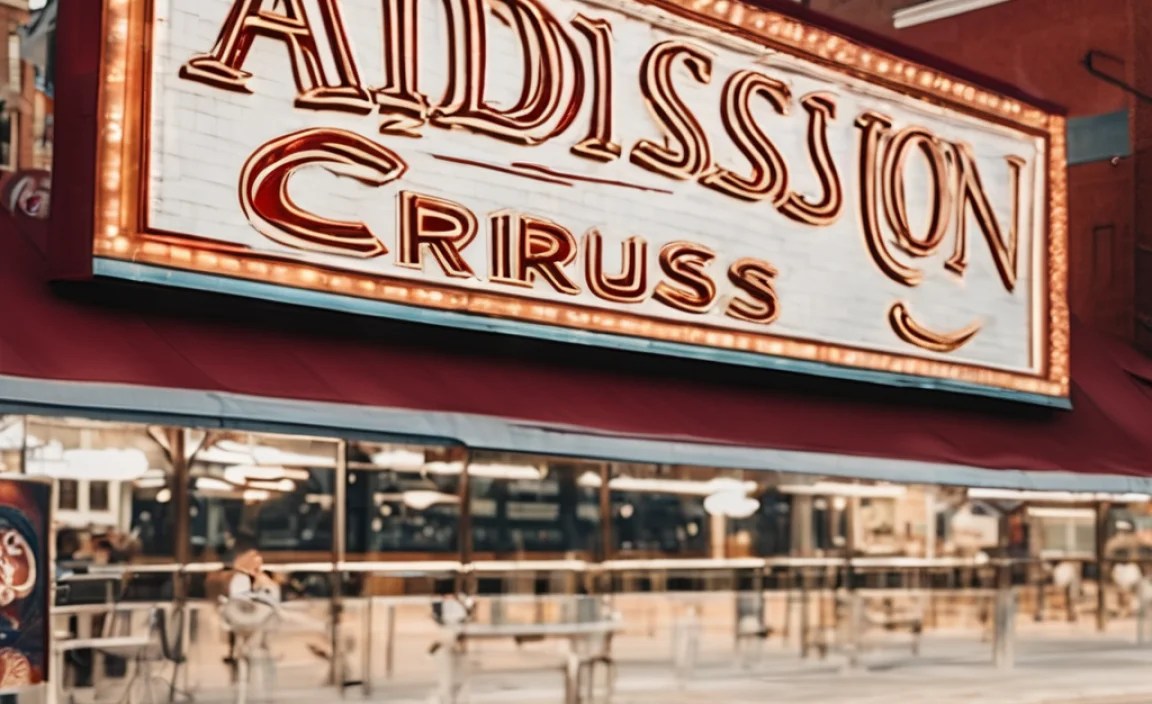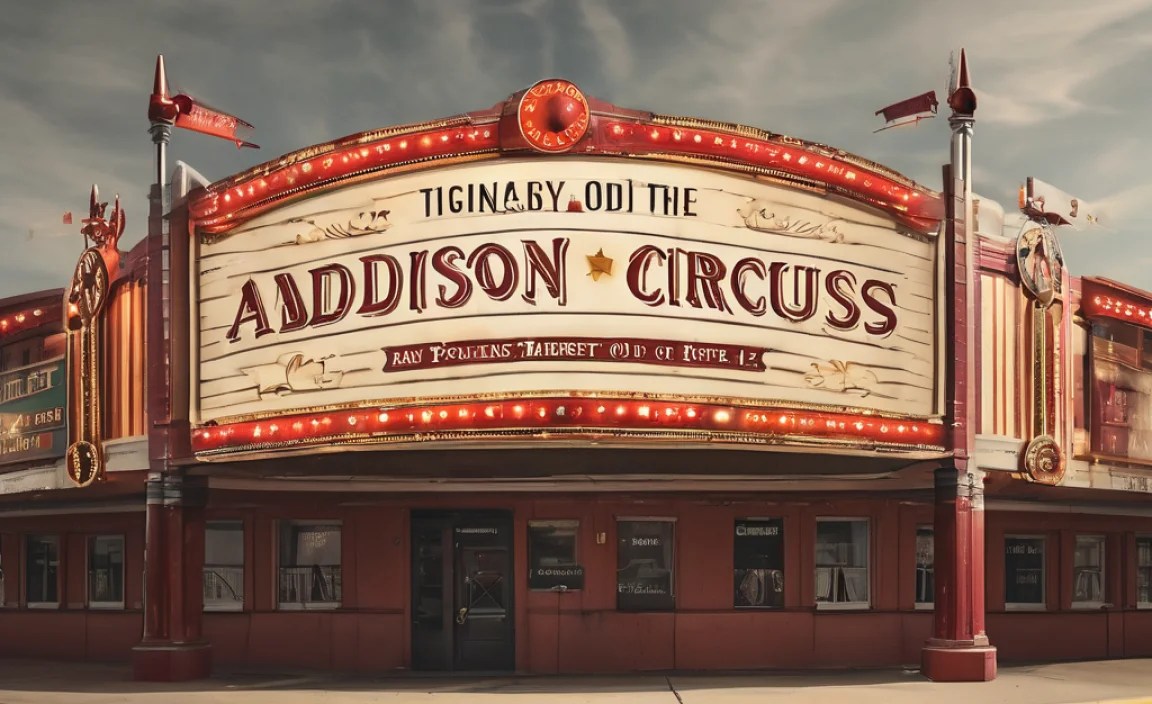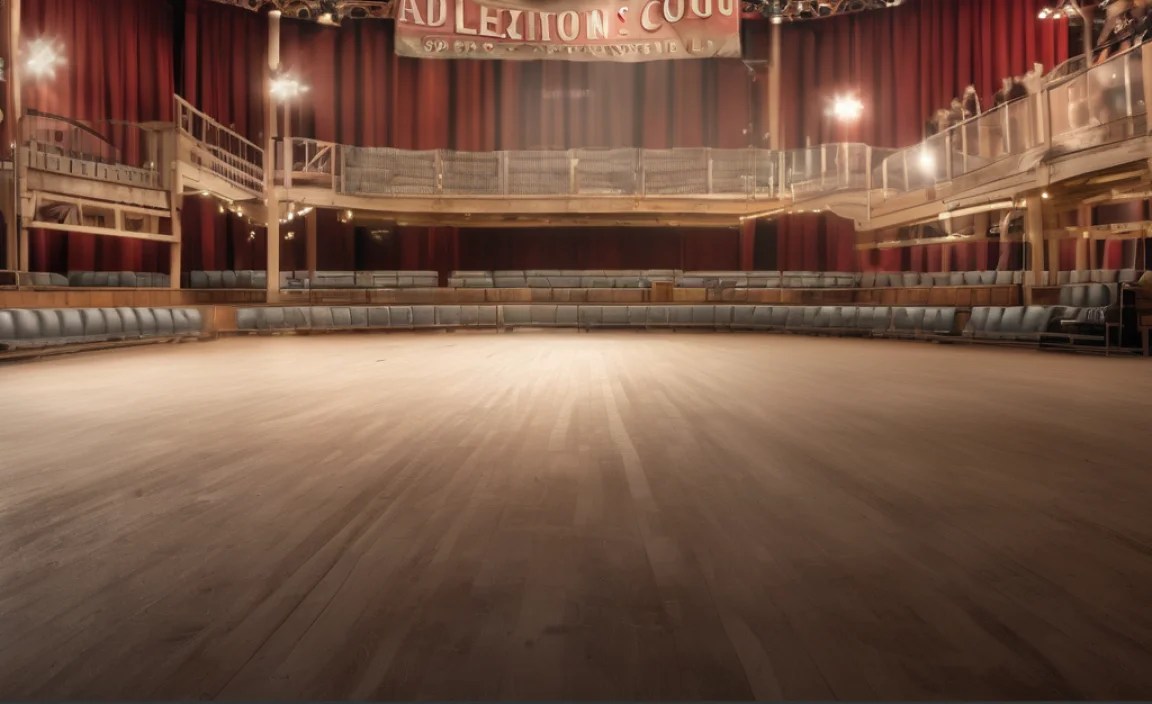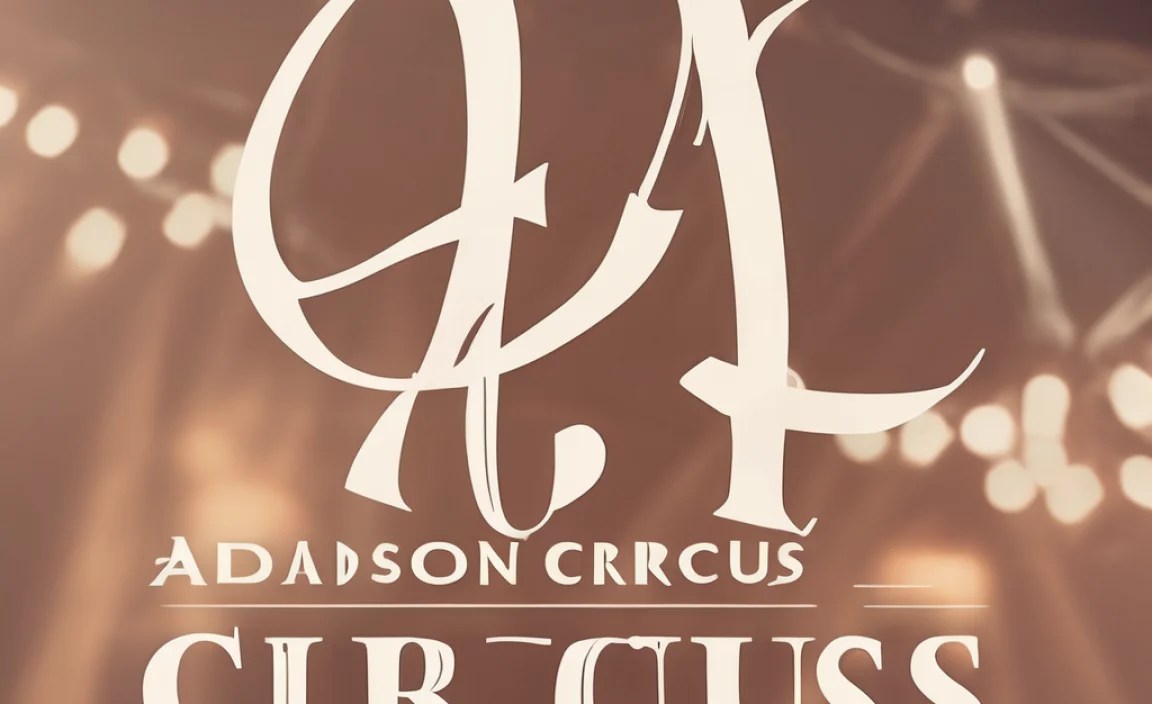
Have you ever seen an old circus sign and wondered about its font? The Addison Circus Font brings that magical circus feel to any design. It’s like stepping into a world of fun and excitement! This font is not just for posters or signs. It’s for anyone who loves playful and bold letters.
Imagine a big top tent, colorful balloons, and clowns juggling. That’s the kind of excitement Addison Circus Font brings to your work. It’s perfect for birthday cards, party invitations, and more. This font is eye-catching and full of character. Let’s explore how this font can add a splash of adventure to your creations!
Key Takeaways
- Addison Circus Font brings a vintage circus vibe.
- It’s perfect for fun, eye-catching designs.
- Use it for posters, invitations, and crafts.
- The font is colorful and full of character.
- Addison Circus Font makes any text look exciting.
Understanding Addison Circus Font
The Addison Circus Font is a whimsical and fun font style. It imitates the look of vintage circus posters. These posters are colorful and full of bold, playful letters. This font is designed to grab attention and convey excitement. People use it for parties, events, and anything needing a lively touch.
- Great for carnival-themed events.
- Used in crafts and DIY projects.
- Perfect for children’s birthday invitations.
- Ideal for party posters and banners.
- Brings nostalgia and fun to designs.
The font’s design makes text pop and draws the eye in. It’s not a font for everyday use, but one for special occasions. When you want to make a statement, this is the font to use. It captures the essence of a circus with its vibrant style. This font can transform any ordinary text into something extraordinary.
Why Use Addison Circus Font?
Do you want your designs to stand out? The Addison Circus Font can make your project unique. Imagine a birthday card with boring text. Now picture it with bright, exciting letters. Which one is more fun? This font can transform a plain design into something magical and memorable.
Where to Apply Addison Circus Font?
Think of the places you can use this font. Is it a party invitation or a playful sign? This font shines in both. It’s perfect for events that need excitement. The font’s bold style fits perfectly with festive decorations. It’s like adding a sprinkle of magic to your designs.
Making Projects Fun with Addison Circus Font
Are you working on a school project? The Addison Circus Font can make your presentation fun. Use it to highlight important points. Teachers and classmates will love the creative touch. Remember, the font is easy to read even with its playful style. It keeps viewers interested and engaged.
The Design of Addison Circus Font
The design of Addison Circus Font is inspired by old circus posters. It features bold, colorful letters. These letters have unique curves and lines, mimicking the joyful spirit of a circus. This font is perfect for capturing attention and bringing life to any design project.
- Bright, eye-catching colors.
- Playful and bold letter shapes.
- Unique curves and swirls.
- Easy to read from a distance.
- Mimics vintage circus posters.
Using this font adds a touch of nostalgia. It reminds people of the circus’s magic and joy. Designers love it for its ability to convey fun. Whether for a print or digital project, this font ensures your message isn’t ignored. It turns a simple text into a playful masterpiece.
The Unique Style of Addison Circus Font
What makes the Addison Circus Font special? It’s the unique style that stands out. Each letter has a personality. They dance across the page, creating a lively scene. This font brings joy and excitement to all who see it. That makes it ideal for anything that needs a touch of whimsy.
Mimicking the Circus Experience
Imagine the sights and sounds of a circus. The Addison Circus Font captures that experience. The letters are like performers in a show. They leap and twirl, creating an unforgettable visual display. People feel the energy and excitement just by seeing the text in this font.
Enhancing Visual Creativity
The Addison Circus Font is a tool for creativity. It’s not just about letters. It’s about telling a story. Each design element contributes to the overall circus theme. This font inspires creativity and encourages designing beyond the ordinary.
Comparing Addison Circus Font to Others
How does Addison Circus Font compare to other fonts? This font stands out for its playful style. While other fonts may be formal, Addison Circus Font is all about joy and fun. It’s a break from the usual seriousness found in many fonts. Let’s see how it compares in a table.
| Font Name | Style | Use Case | Reader Engagement |
Question: Can kids use Addison Circus Font for projects?
Answer: Absolutely! Kids can use the Addison Circus Font for school projects and crafts. It’s easy to read and adds fun to their work. This font makes learning and creativity enjoyable.